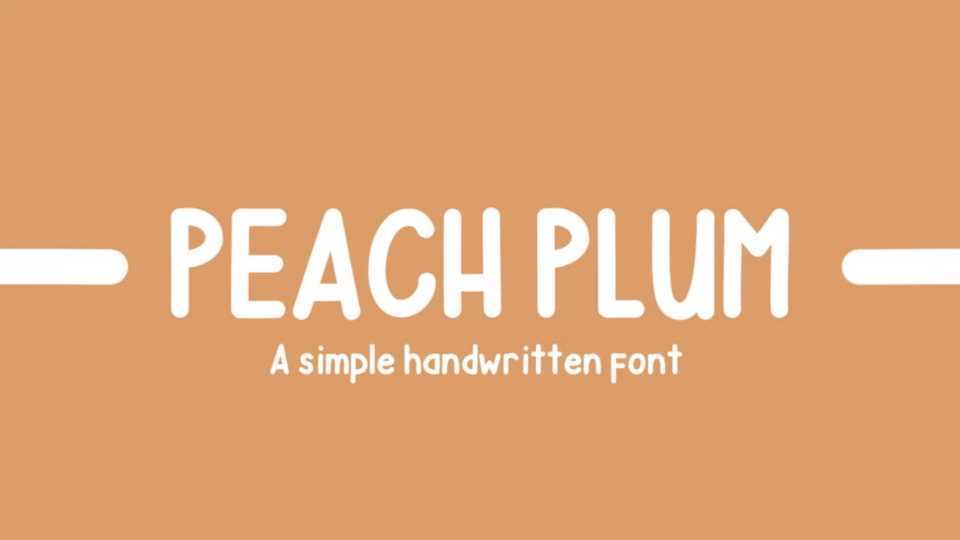
Download Peach Plum font, a simple and playful handwritten typeface that can be used for your projects. Peach Plum is perfect to add a personal touch and nice look to your projects.
Designer: Jo Ang